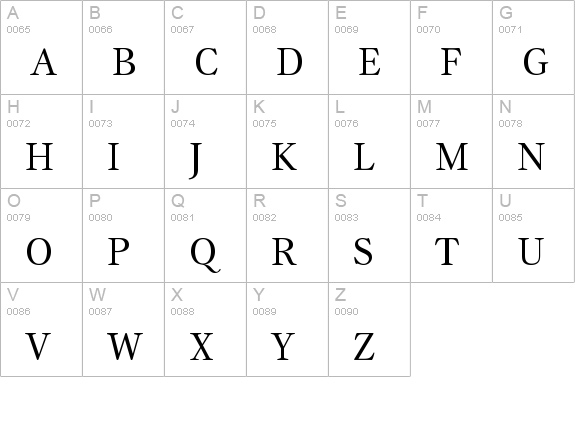
GammaEF-Book is a comfortable, highly readable variant in the GammaEF typeface family \xE2\x80\x94 well suited to long-form body text, articles, and editorial content.
Introducing GammaEF-Book, a stunning and versatile font that effortlessly blends elegance with modernity. Designed with meticulous attention to detail, this typeface is perfect for a wide range of creative projects, whether it's designing eye-catching logos, crafting captivating headlines, or bringing a touch of sophistication to your printed materials. What sets GammaEF-Book apart is not just its impeccable design, but also its accessibility. This font is available for free, allowing you to use it in both personal and commercial projects without any restrictions. With GammaEF-Book, you can unleash your creativity without breaking the bank. To get your hands on this exquisite font, simply head over to FontsMarket.com, where it is freely available for download. FontsMarket.com is a trusted source for high-quality fonts, offering a vast selection of typefaces to suit every design need. With just a few clicks, you can start incorporating GammaEF-Book into your projects and elevate your designs to new heights. Whether you're a seasoned designer or just starting out, GammaEF-Book is a must-have addition to your font collection. Its sleek and sophisticated aesthetic, combined with its ease of use, makes it the perfect choice for any creative endeavor. So why wait? Download GammaEF-Book today and unlock a world of design possibilities.